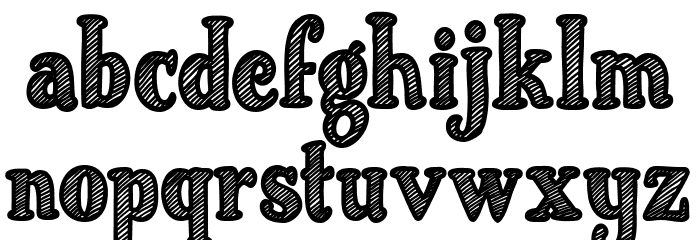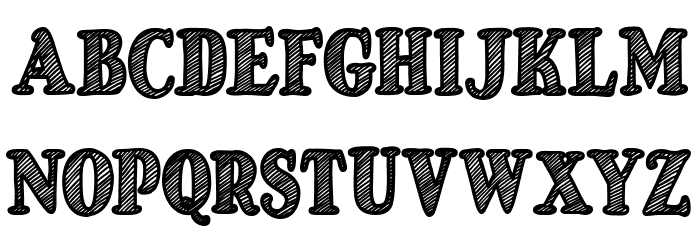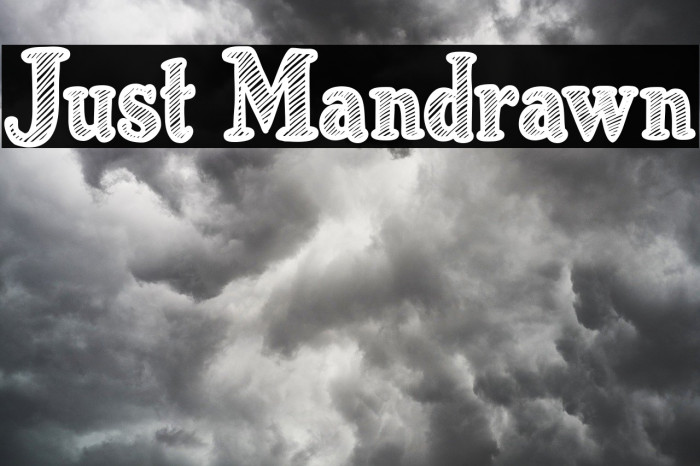
Just Mandrawn Font
This font features a bold, decorative style with a hand-drawn appearance. Each character is filled with diagonal lines, giving it a textured, shaded look. The serifs are pronounced, adding to the vintage and playful aesthetic. The uppercase and lowercase letters maintain a consistent style, with a slightly whimsical touch. The numbers and special characters follow the same design, ensuring uniformity across all glyphs. This font is ideal for projects that require a unique, eye-catching typeface with a handcrafted feel.
A bold, decorative font with a hand-drawn, textured appearance.
- Proposed Projects: Ideal for posters, logos, branding, and any design needing a playful, vintage touch.
- Overall Style: Vintage, Decorative